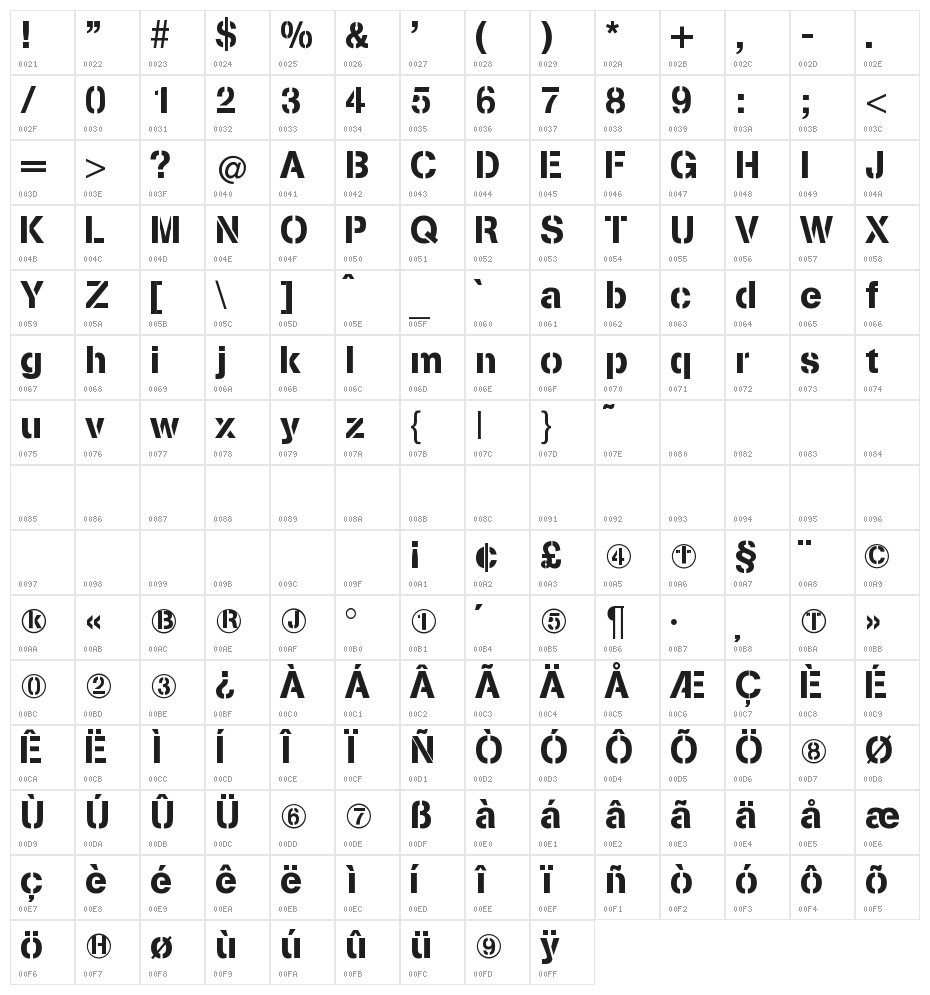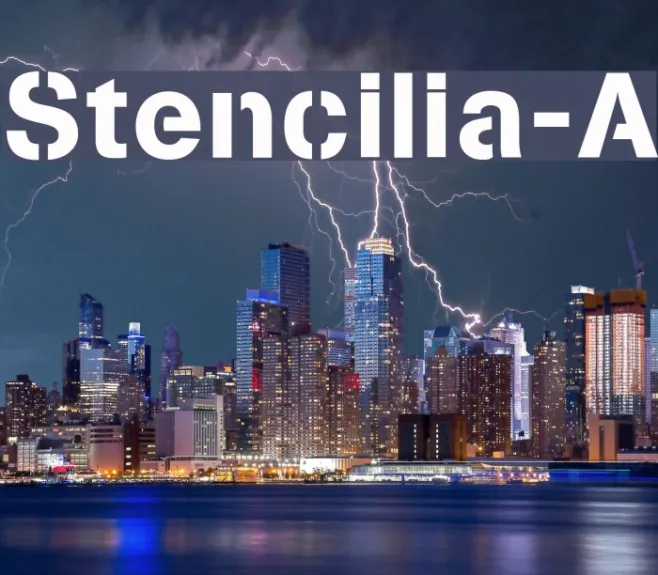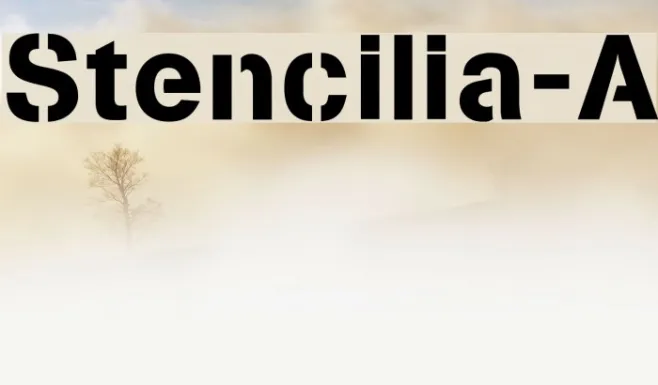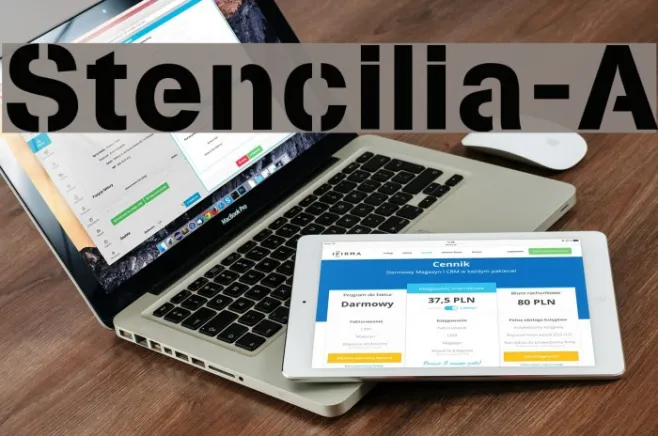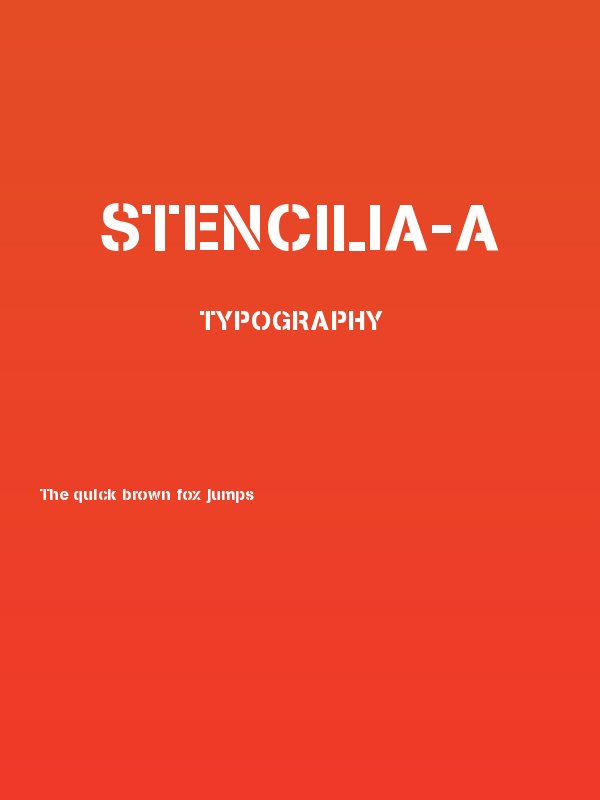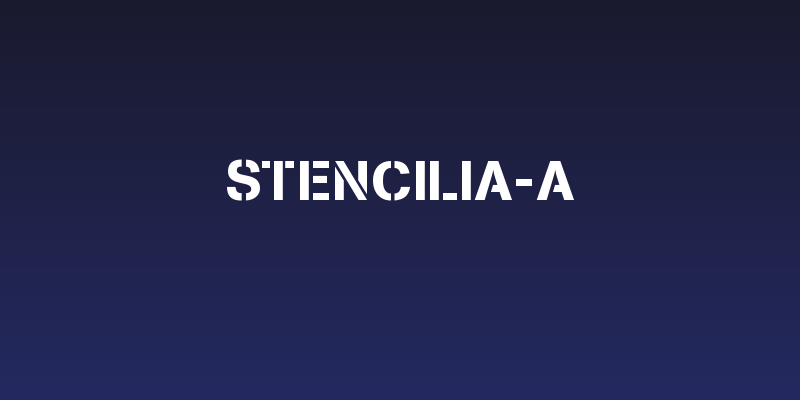
Stencilia-A Font
Stencilia-A Description
This font features a bold, impactful design with a stencil-like appearance. The characters are constructed with breaks in the strokes, creating a distinctive and industrial feel. The uppercase and lowercase letters maintain a consistent weight, contributing to a cohesive look. The numerals and special characters follow the same stylistic approach, ensuring uniformity across all glyphs. The font's geometric shapes and clean lines make it highly legible, even at smaller sizes. Its strong presence and unique style make it ideal for projects that require a bold statement.
| Proposed Projects | Ideal for branding, posters, signage, and any design needing a strong, industrial aesthetic. |